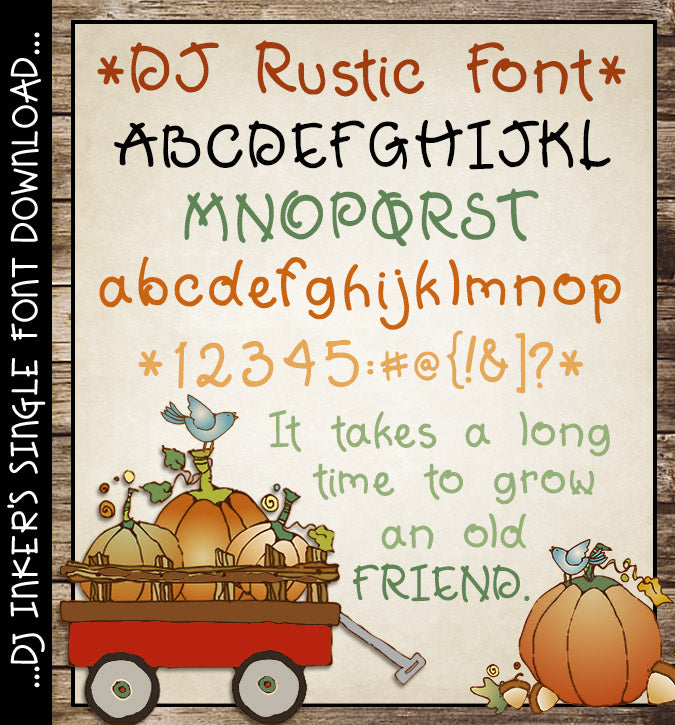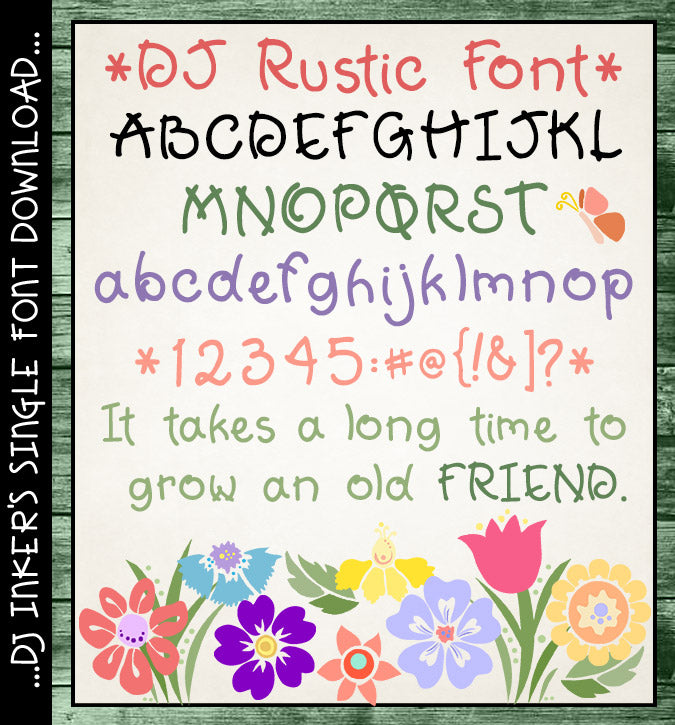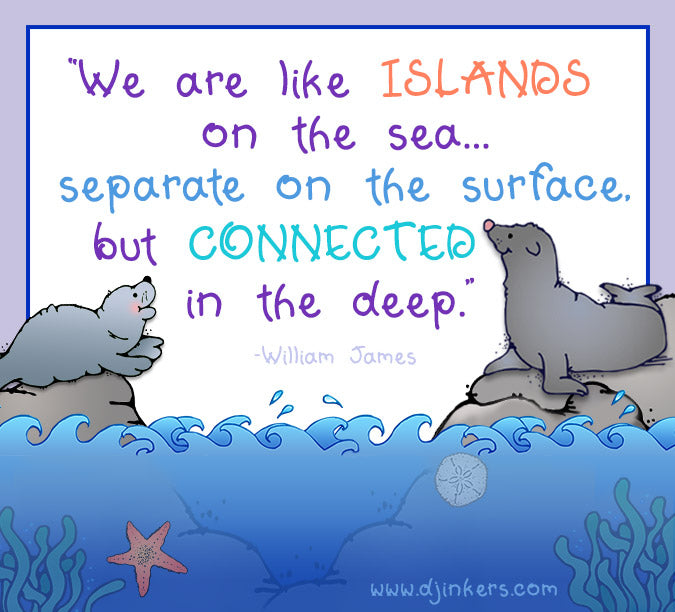
DJ Rustic Font Download
Add a touch of country charm to your creations with this Rustic font by DJ Inkers. This versatile hand drawn lettering is perfect for a variety of projects, from farmhouse décor to kids' crafts and seasonal smiles. Sure to be a favorite in your collection, this warm & inviting font is bold, clean and easy to read in any size or color. Type up a smile today!